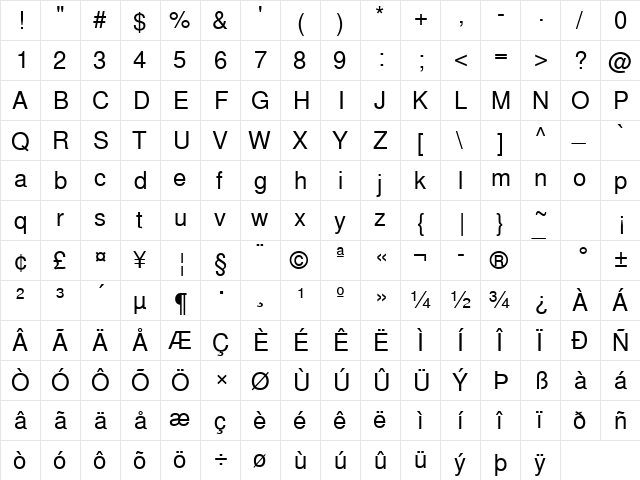
NimbusSanLUN Regular
Design Context for NimbusSanLUN Typeface
NimbusSanLUN is a composed and adaptable typeface that performs quietly and consistently across a wide range of design contexts.